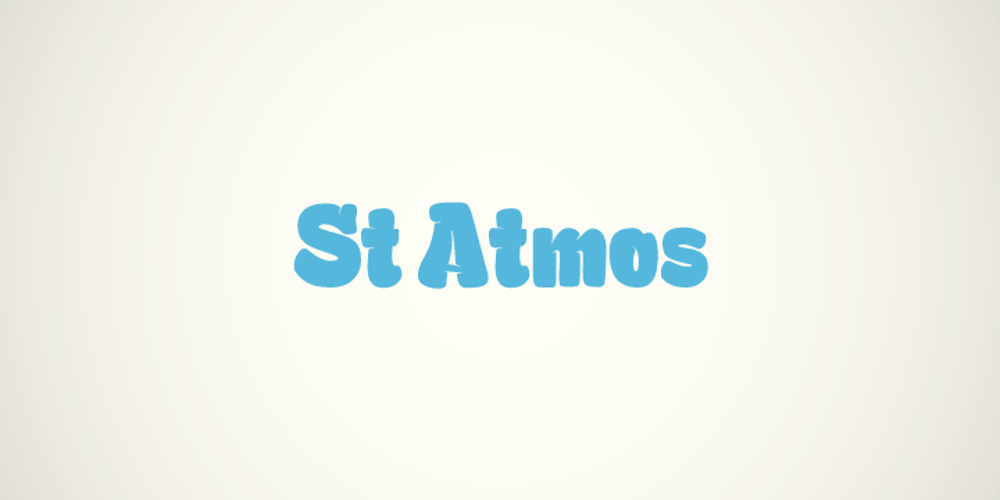
St Atmos Font Family was designed by Sascha Timplan and published by Stereotypes. St Atmos contains 1 styles and family package options. St Atmos was the first commercial typeface of Stereotypes, the first of what’s likely to become a significant collection of headline fonts. The massive ink traps at Atmos give this typeface something of a three-dimensional feeling.